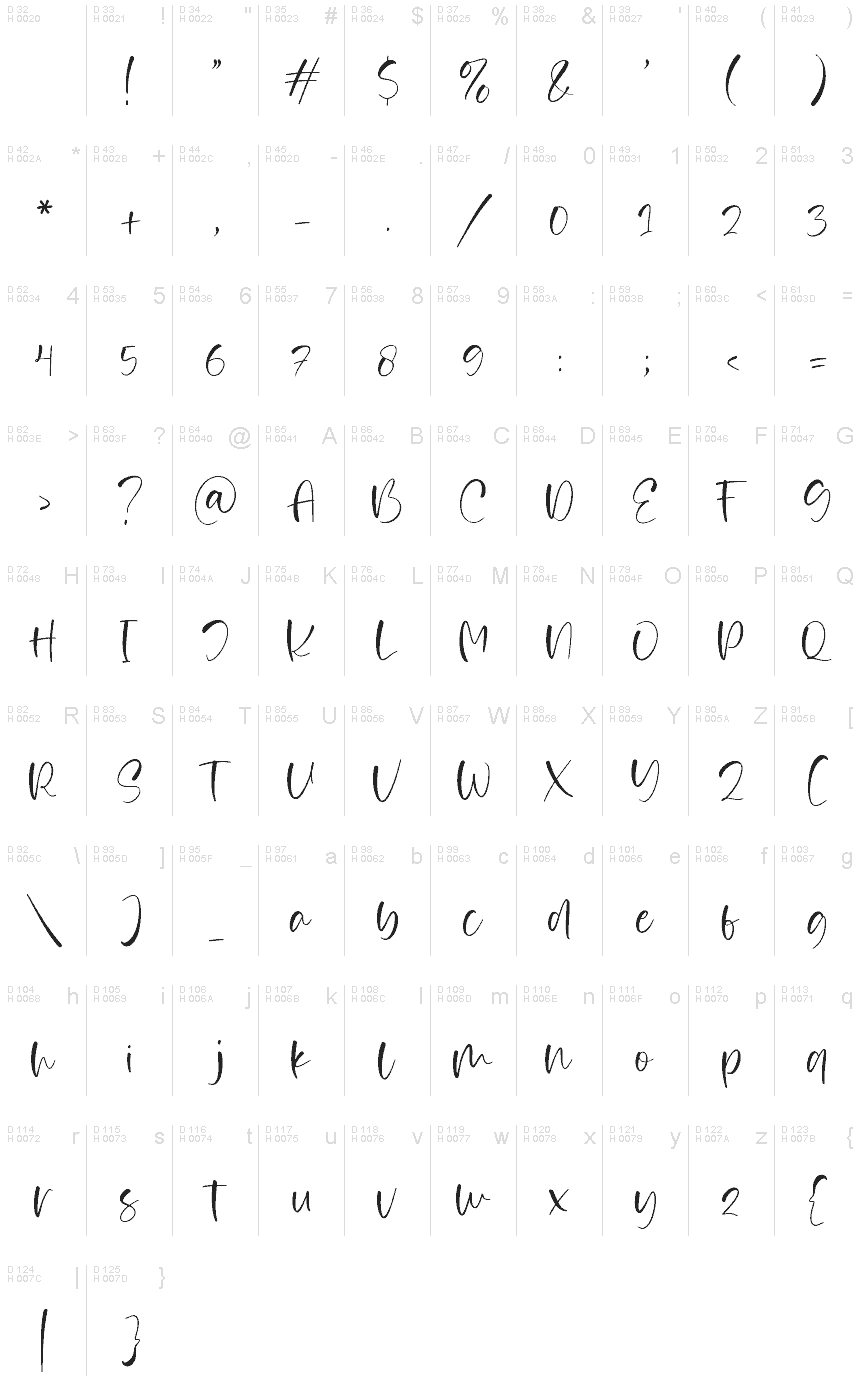
Canfield
Canfield font by Aestherica Studio is a free handwritten font with an elegant, modern, and fluid style. Expressive letterforms distinguish the typeface and make it extremely personal when integrated into projects. Texts in Canfield not only mimic classic handwriting but also bring in a lovely artistic touch.